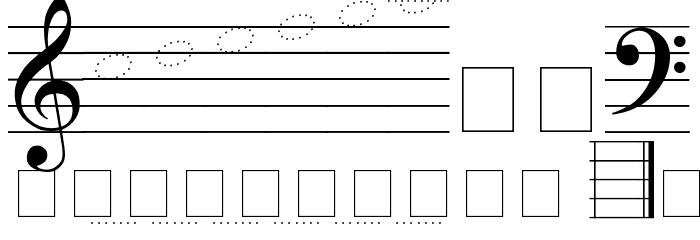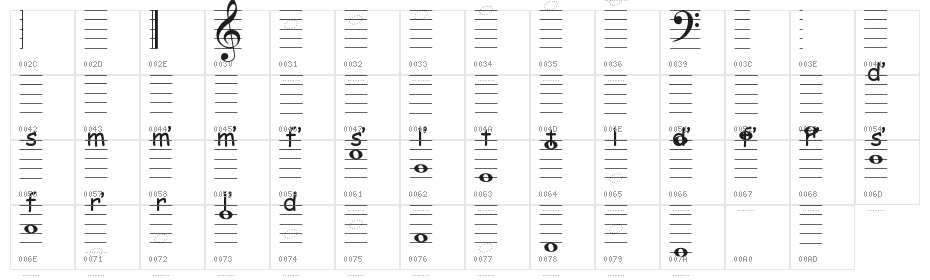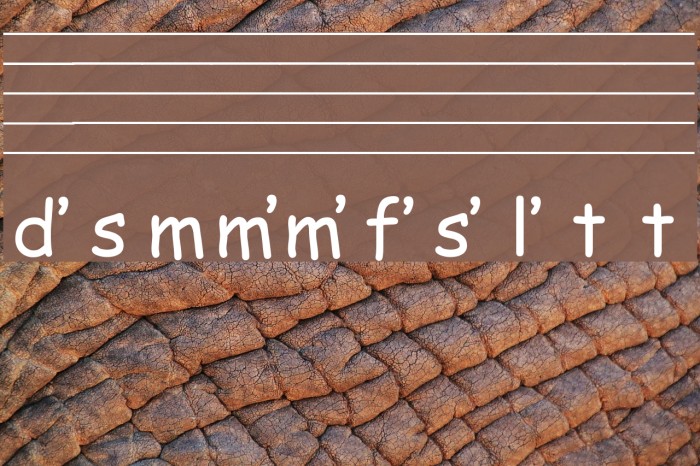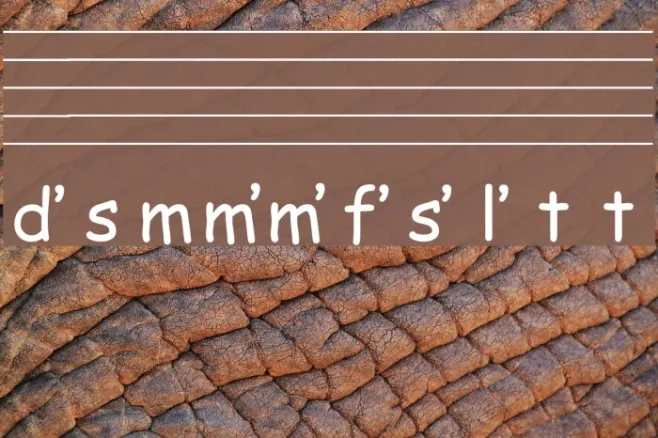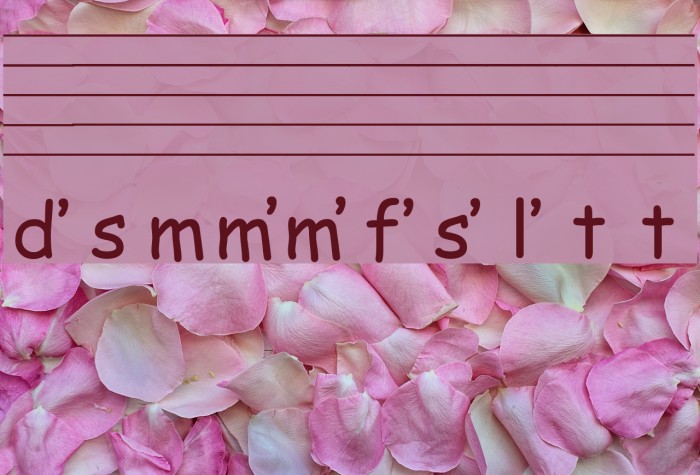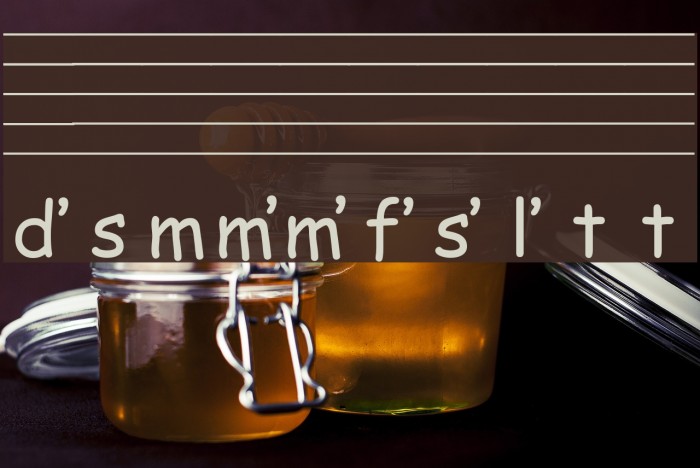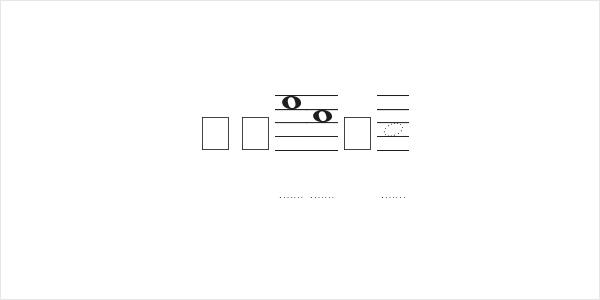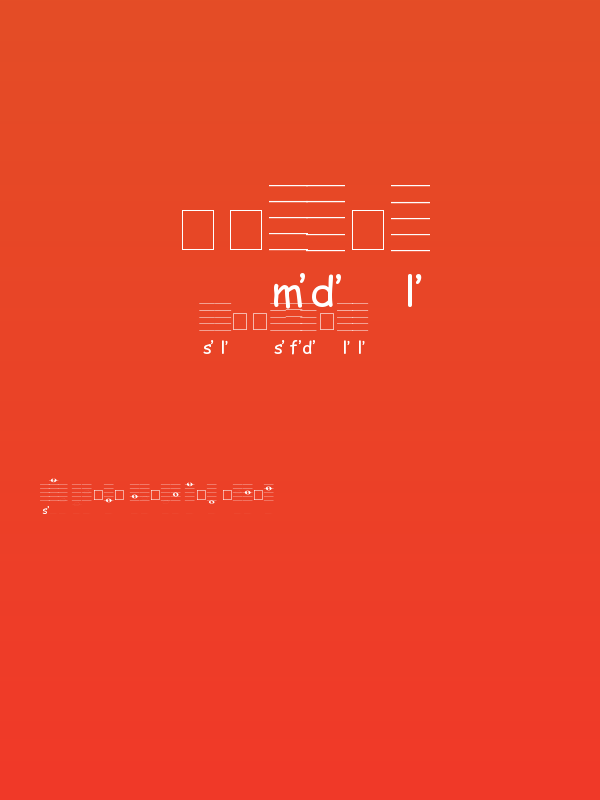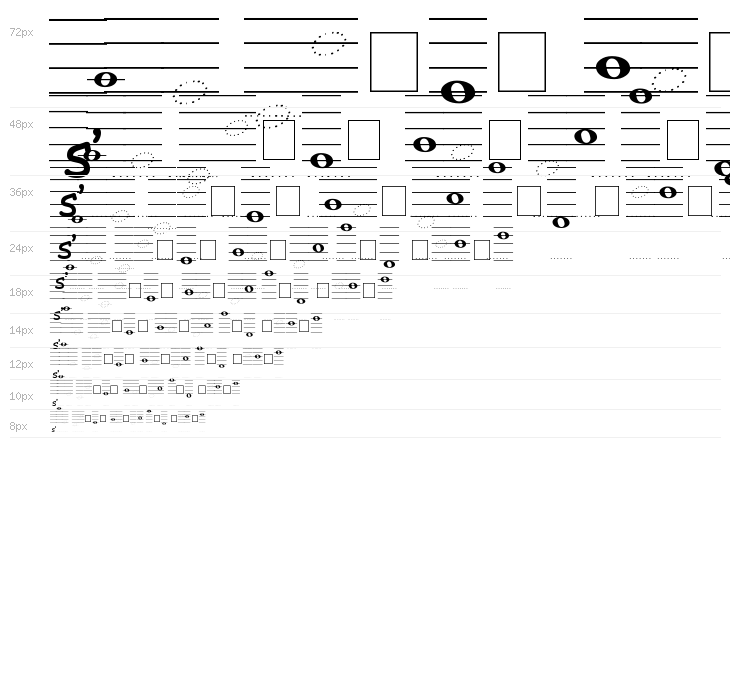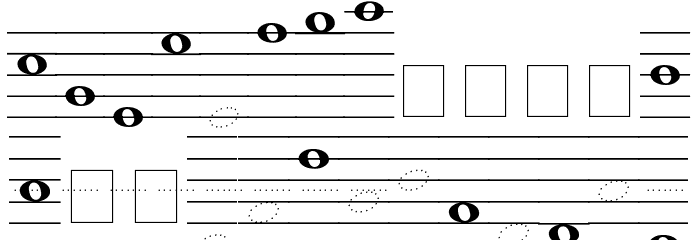
Kodaly Font
Kodaly Description
A playful, handwritten-style font with rounded, informal letterforms and consistent stroke width, designed for clarity and approachability in educational contexts.
| Overall Style | Playful, Educational, Informal |
| Use Case | Educational worksheets, music notation guides, classroom resources |
| Proposed Projects | ChildrenΓ’β¬β’s educational materials, music theory worksheets, classroom posters, informal presentations. |